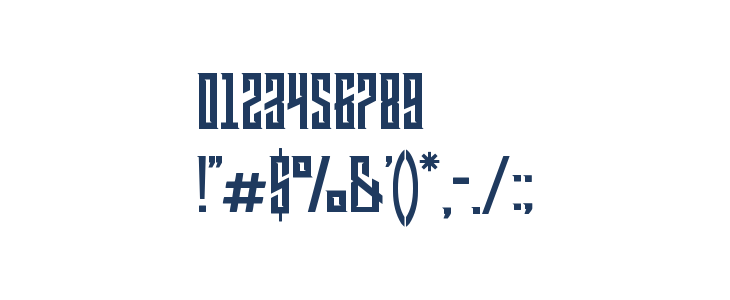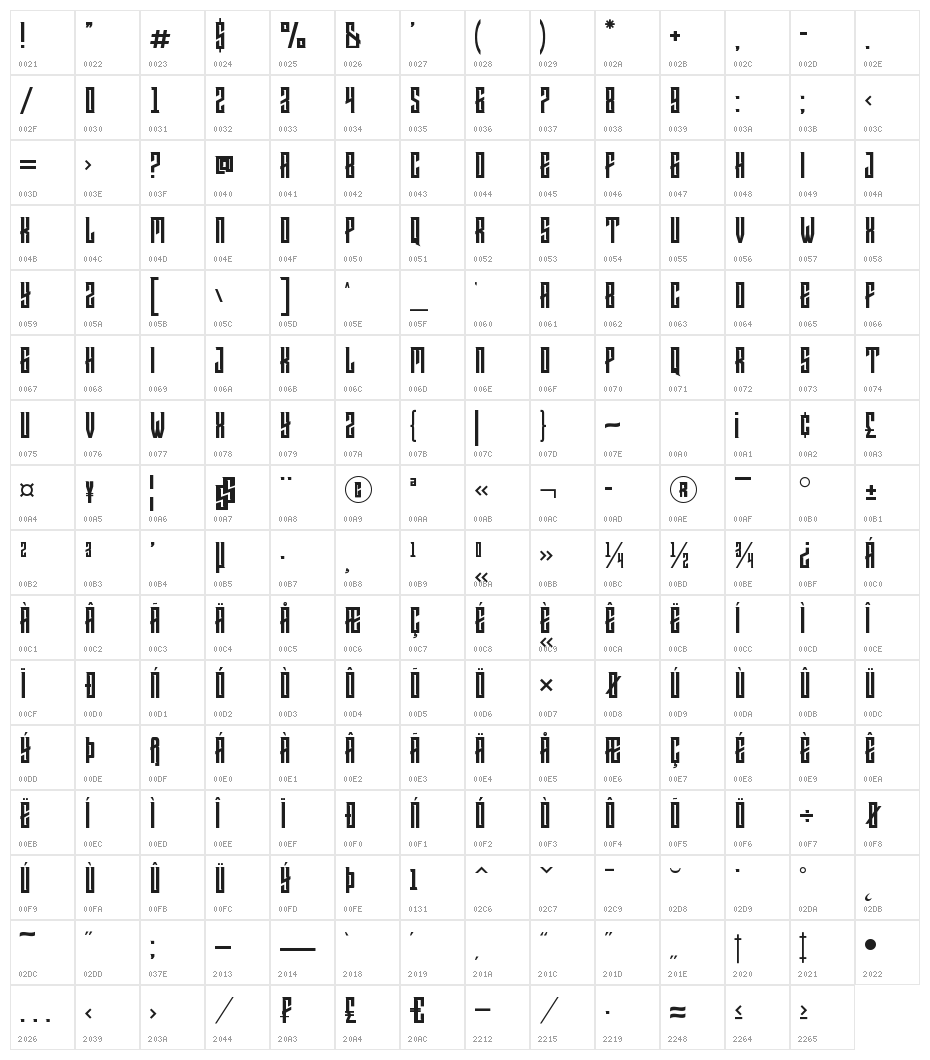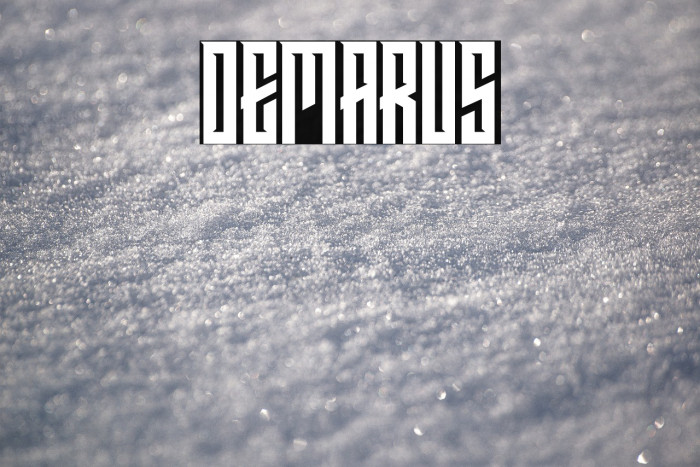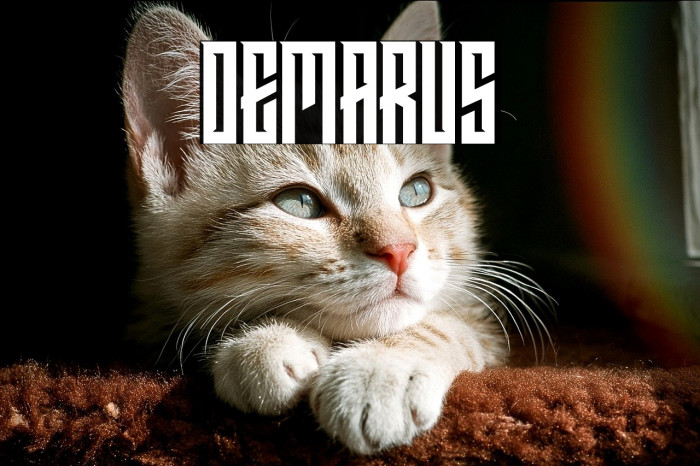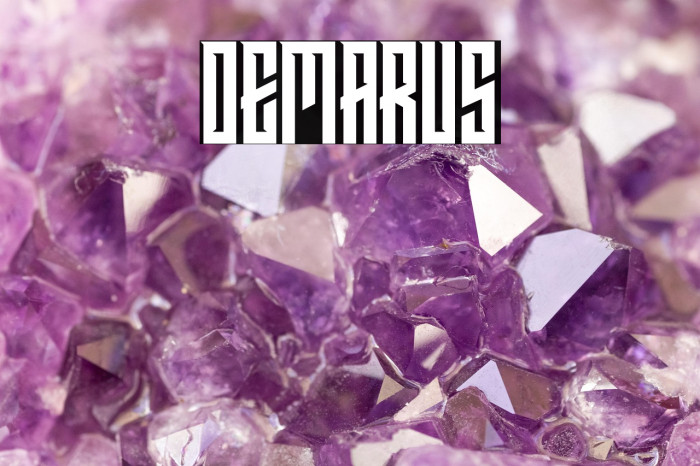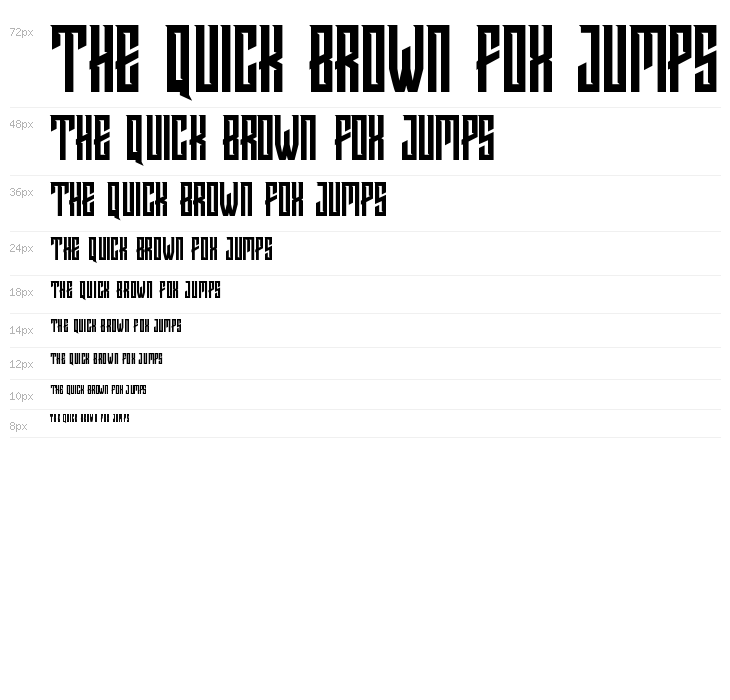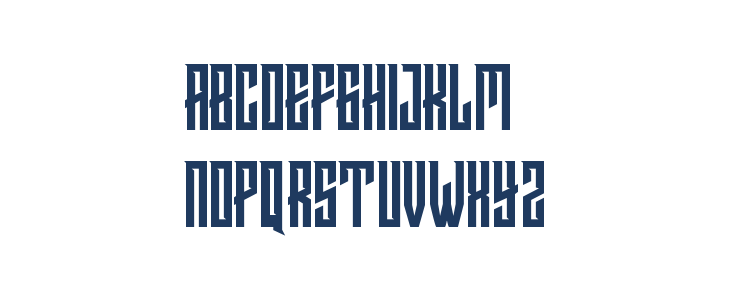
DEMARUS Font
DEMARUS Description
This font features a bold and striking design with sharp, angular lines that create a sense of strength and modernity. The characters are tall and narrow, with a consistent vertical emphasis that gives them a commanding presence. The uppercase and lowercase letters share a similar structure, maintaining a uniformity that enhances readability while still offering a unique stylistic flair. The numerals and special characters are designed to match the overall aesthetic, ensuring a cohesive look across all text elements. This font's geometric style and high contrast make it ideal for impactful designs.
| Proposed Projects | Ideal for branding, posters, headlines, and any project requiring a strong visual impact. |